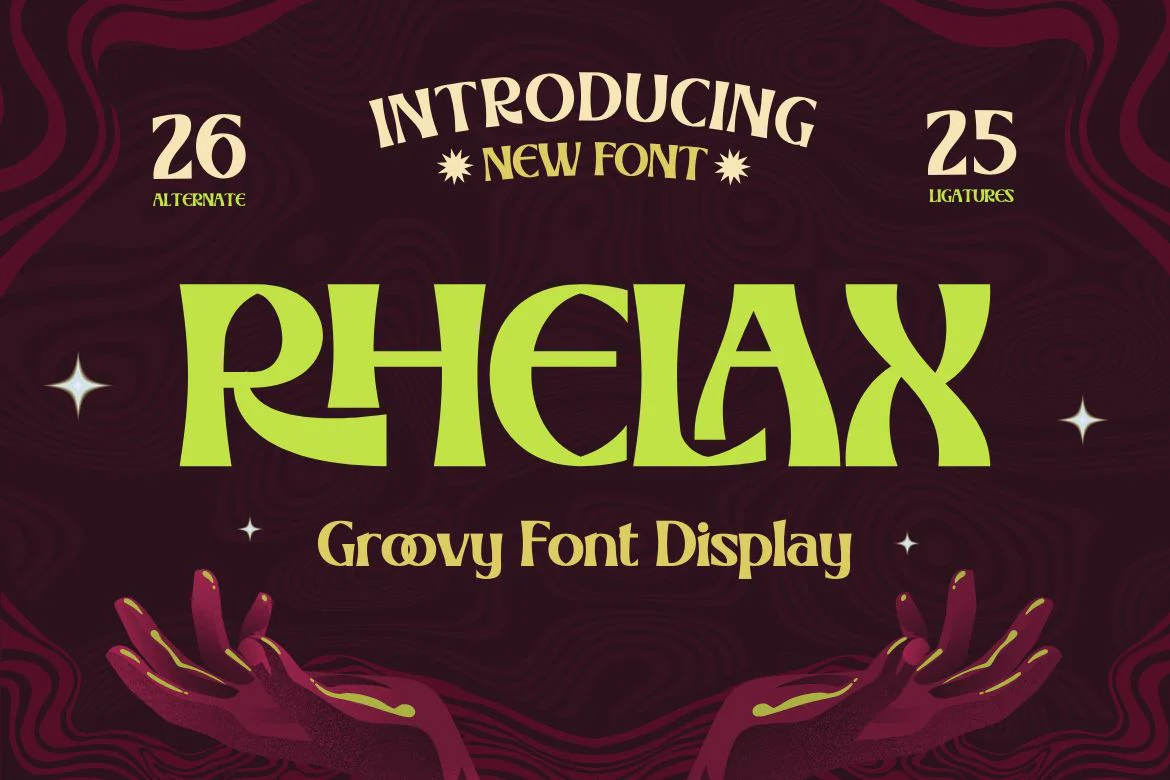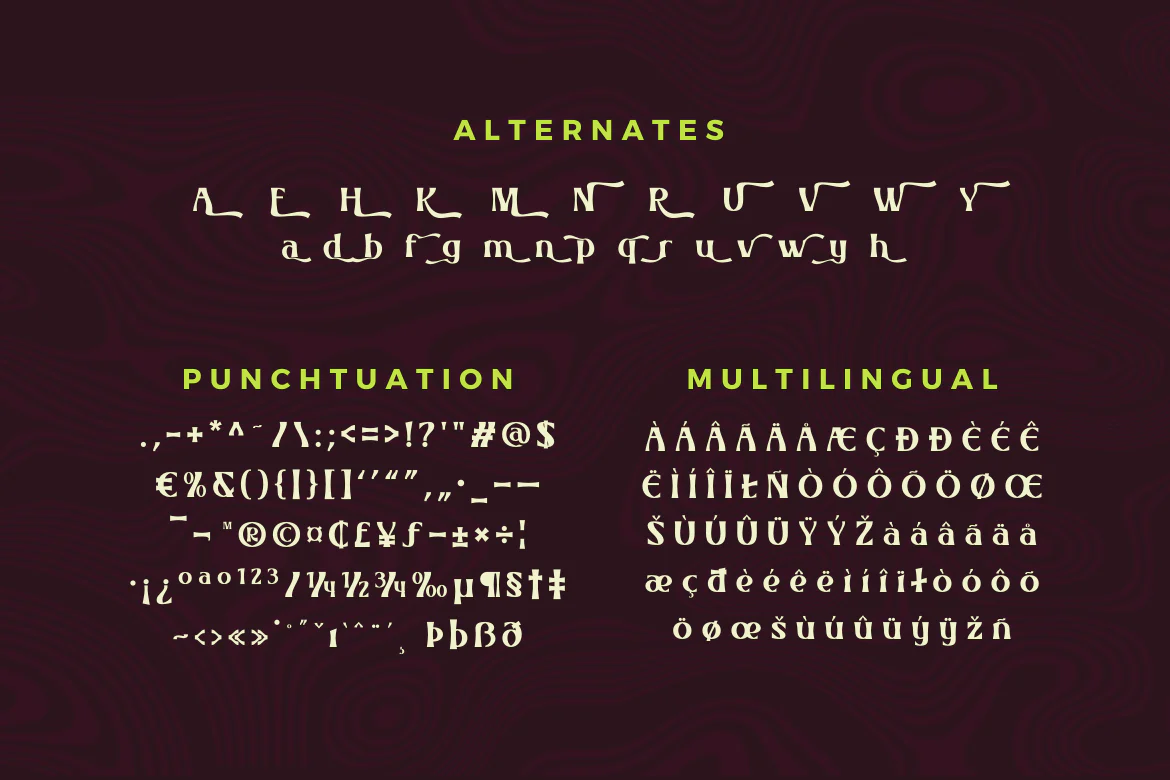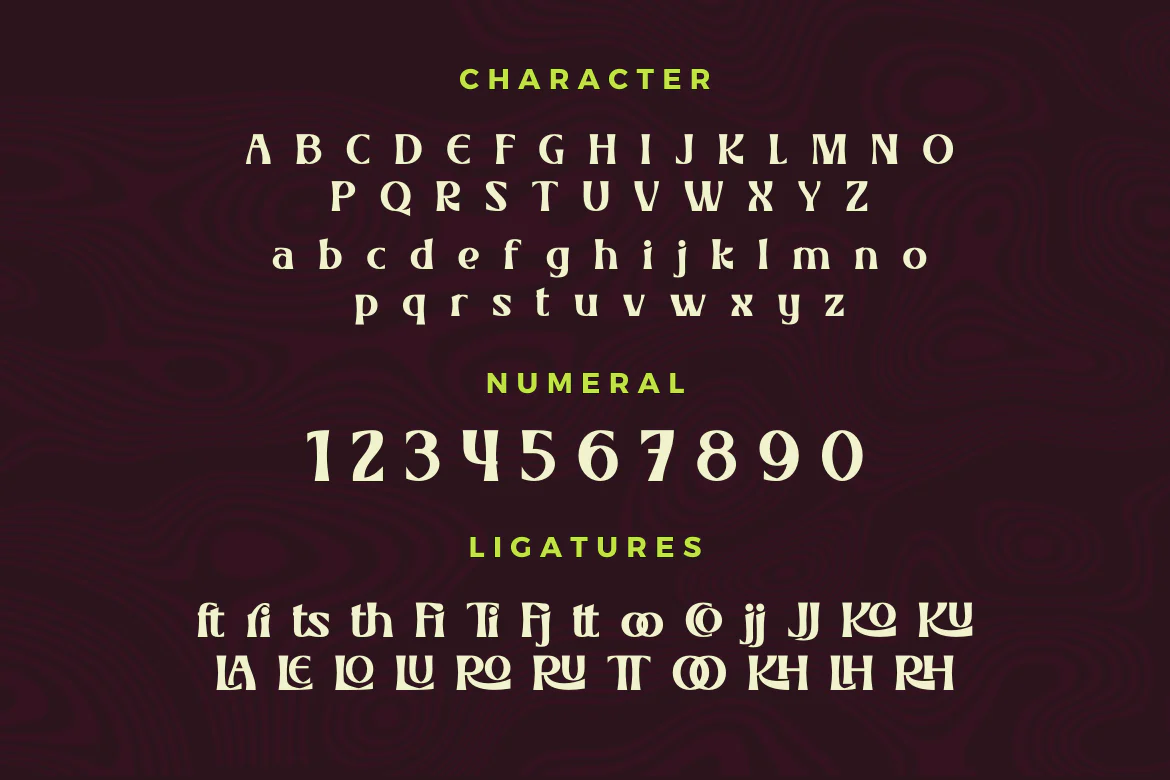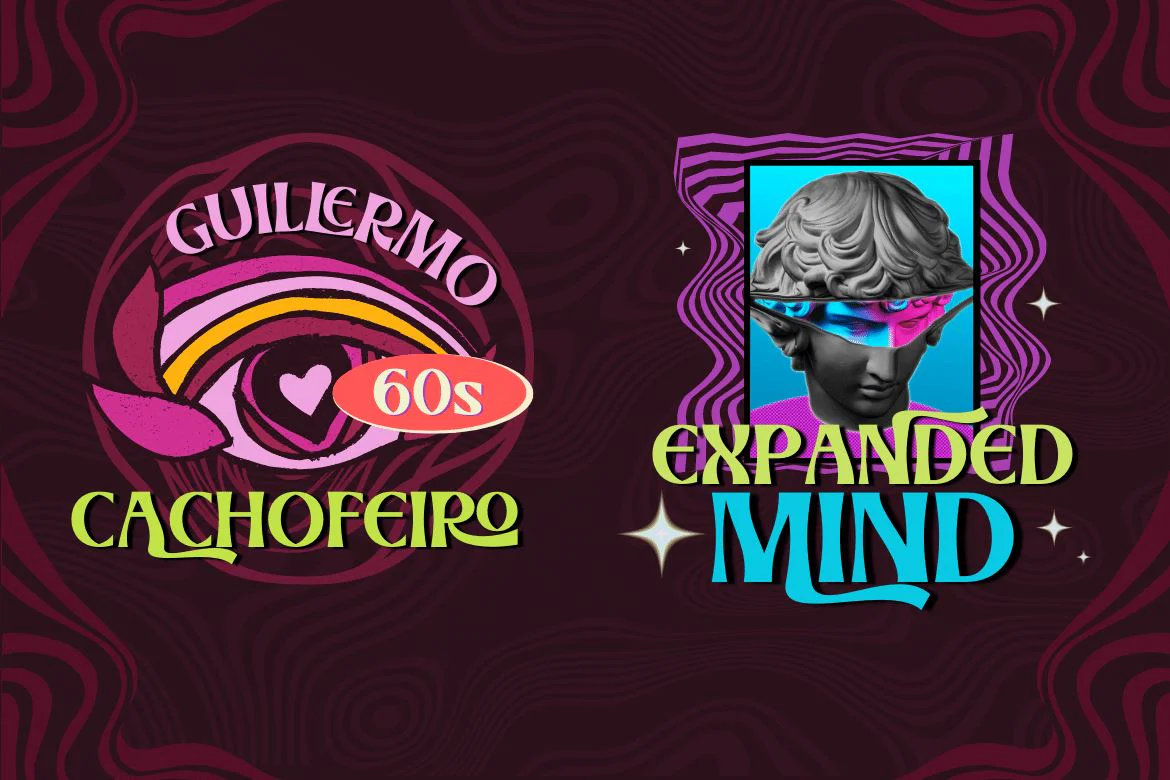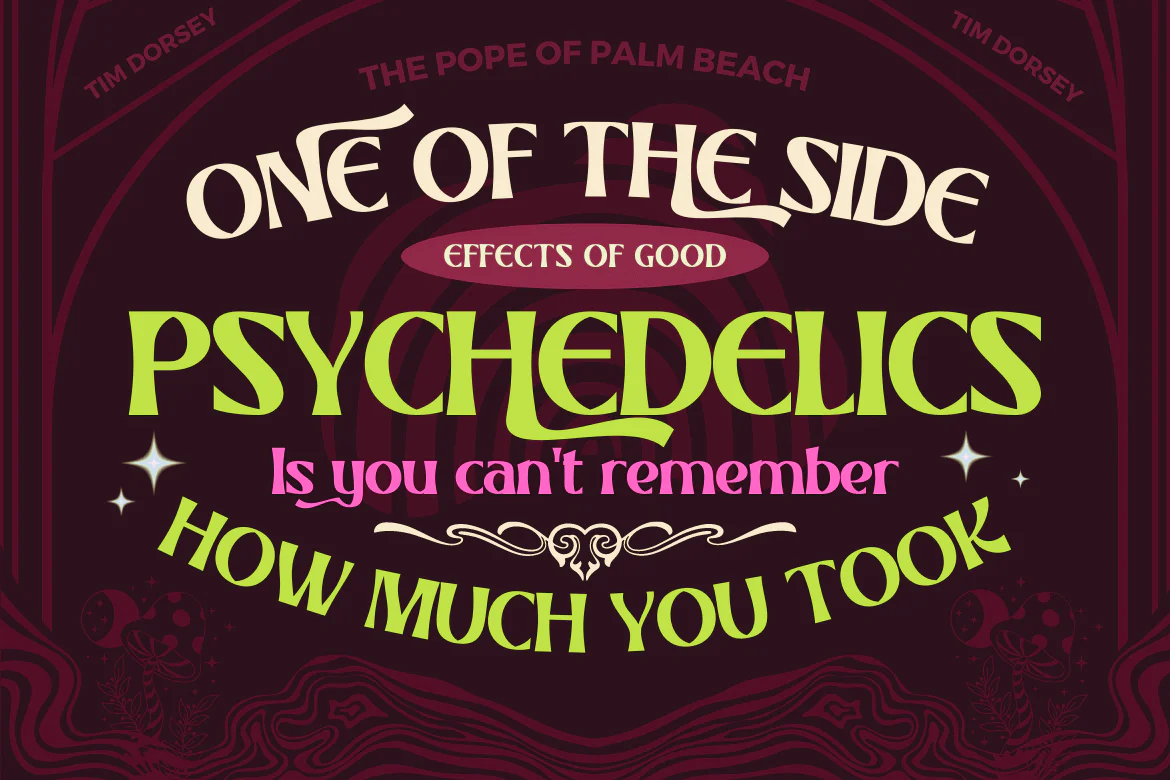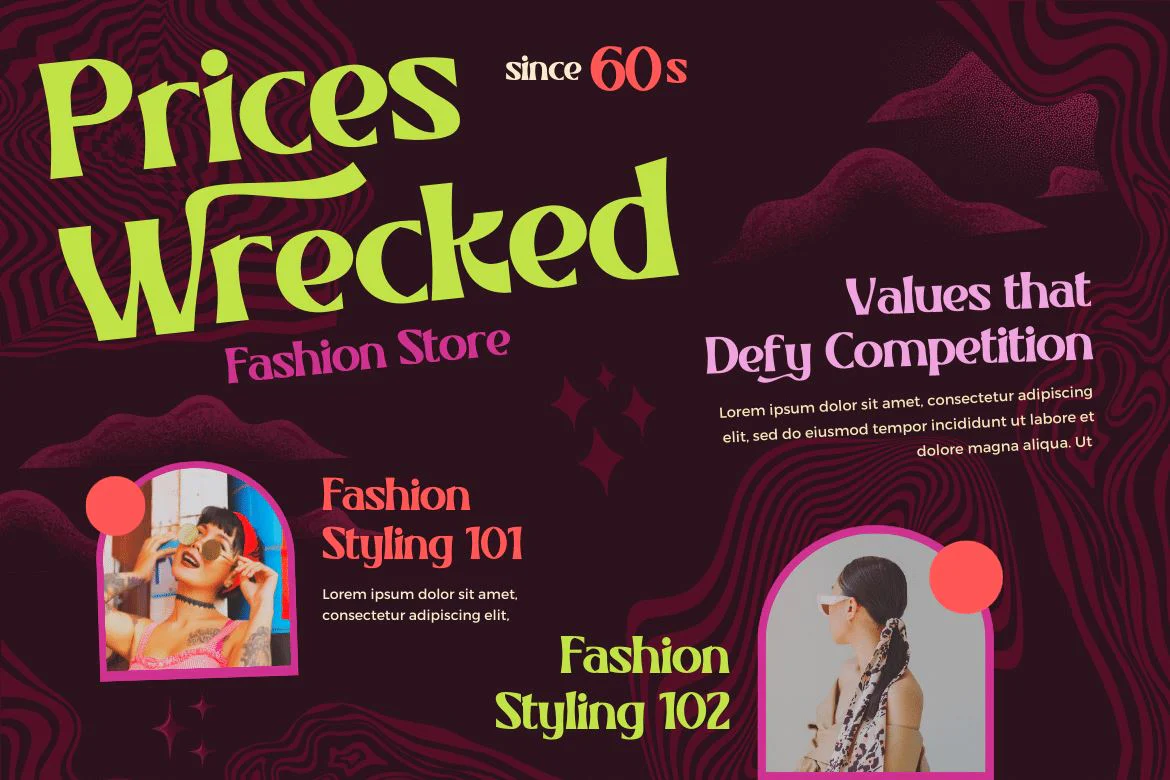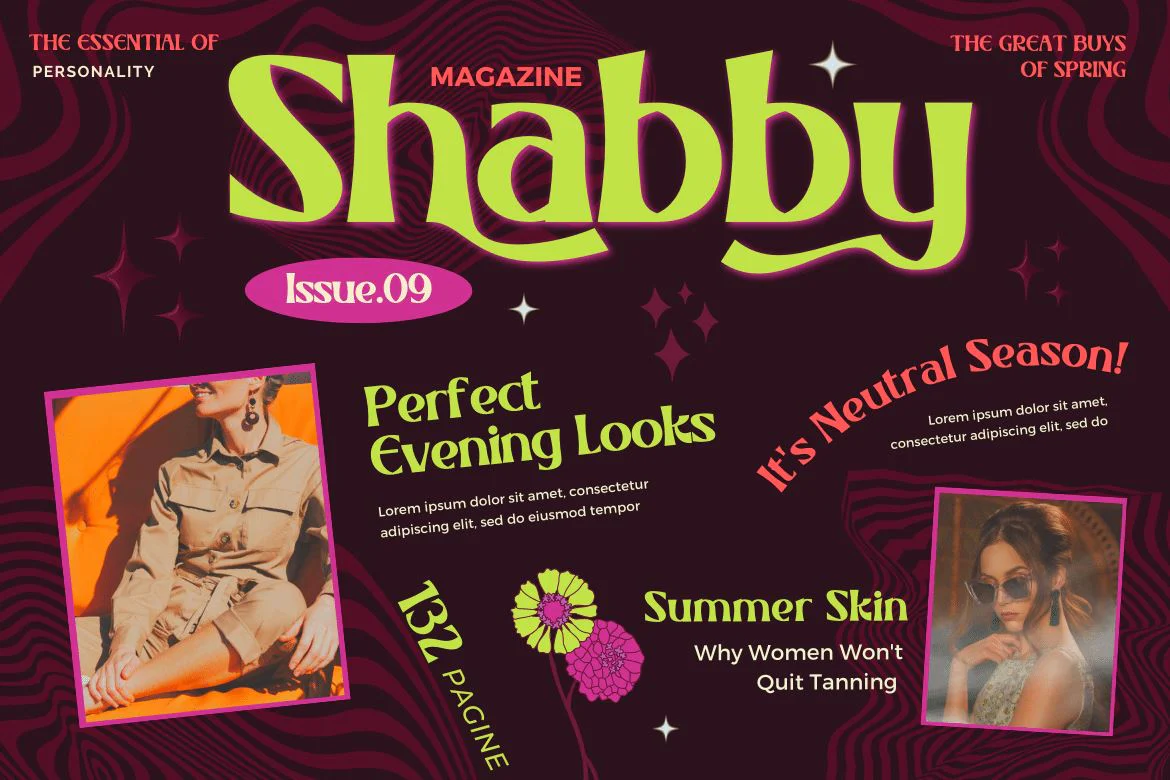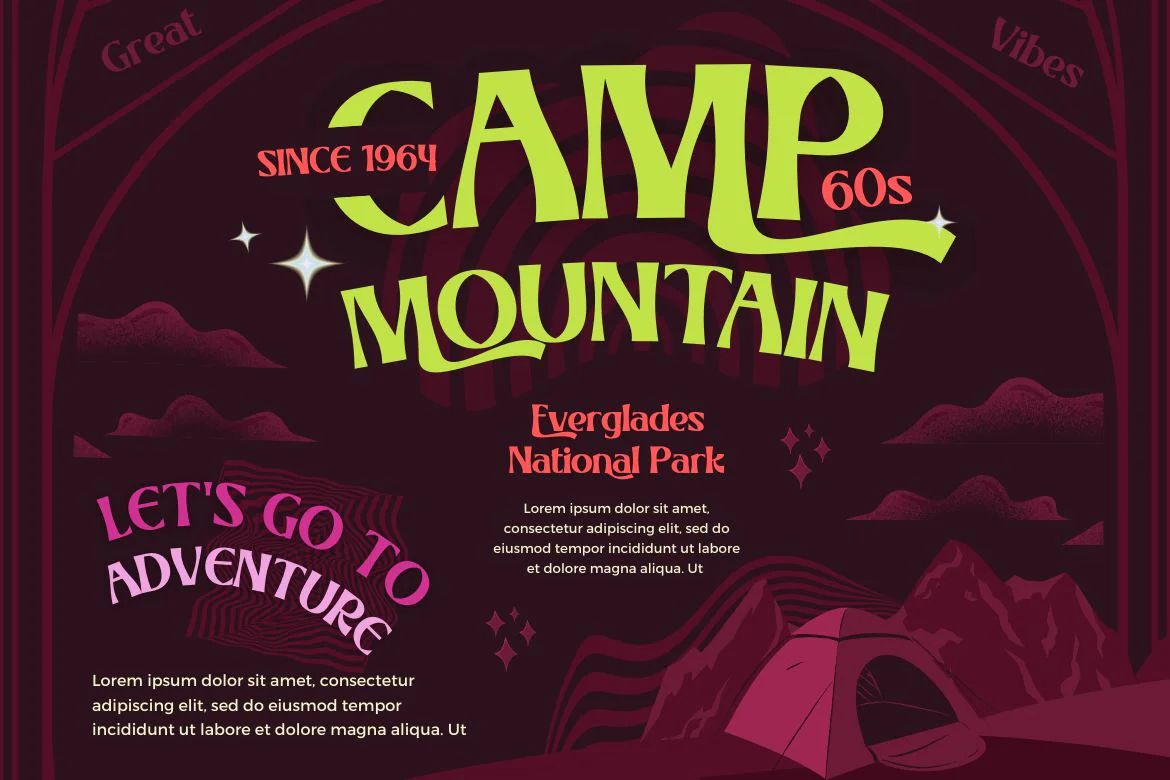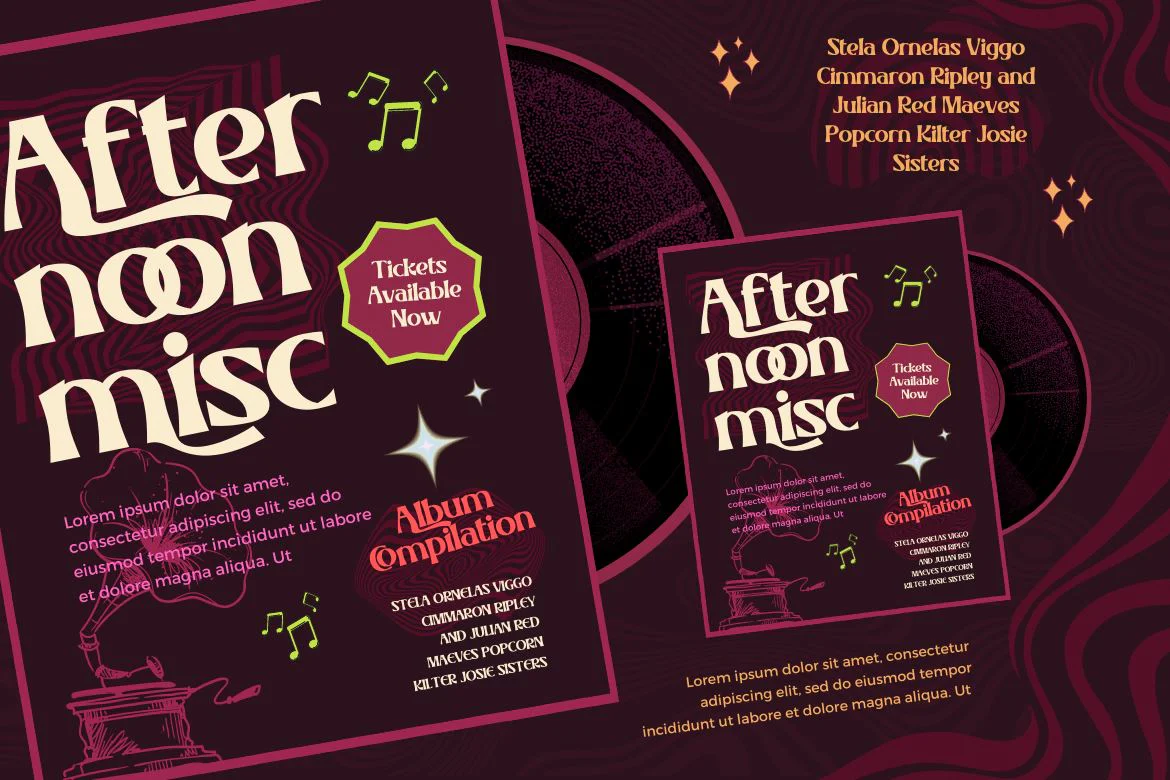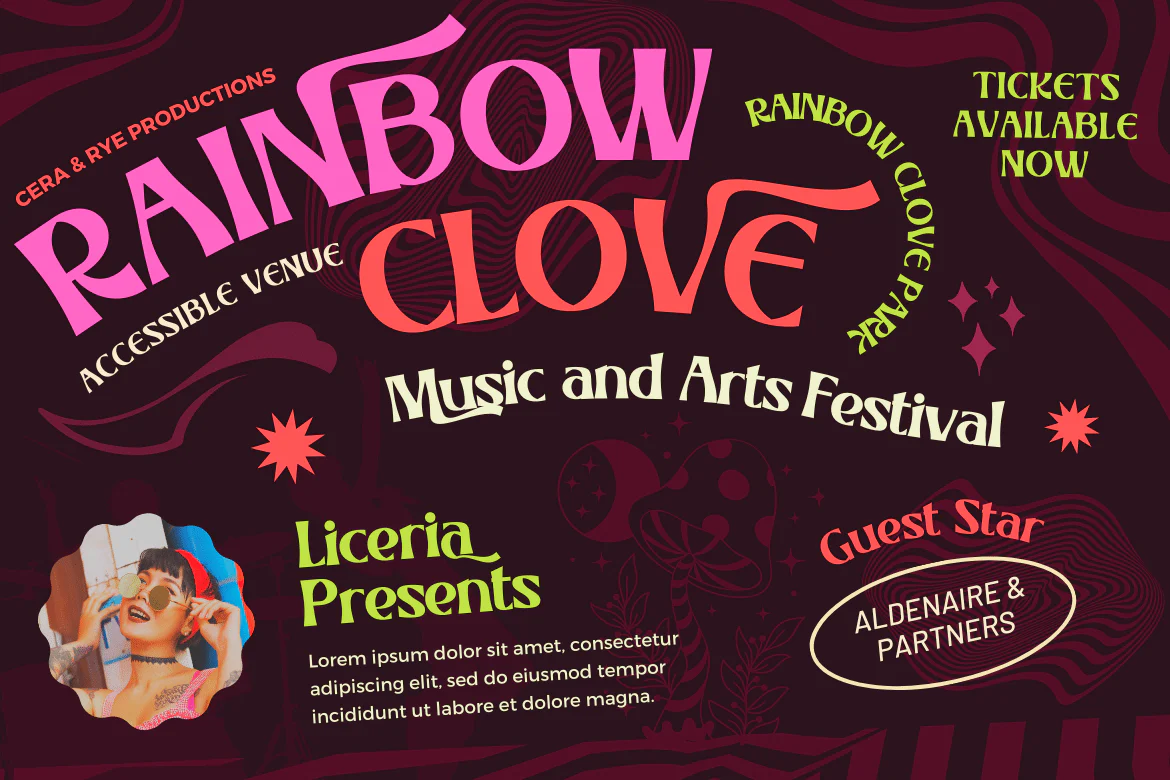
RHELAX | Groovy Retro Font
Rhelax is a luxurious font with a modern look and feel. It has a subtle and elegant style that adds a touch of class to your designs. A wide selection of alternate ligatures and fonts means you can use these to create a custom style for your project that creates a beautiful and unique look. This font offers a unique touch to each letter, making it ideal for a wide variety of projects where you want to stand out from the crowd!